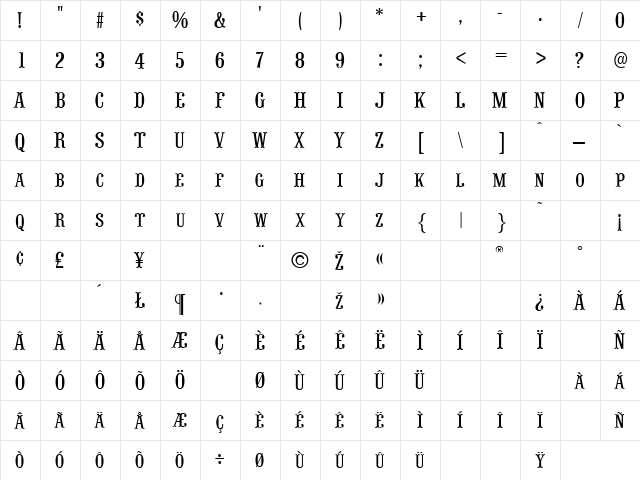
Stereopticon Regular
Design Context for Stereopticon Typeface
Stereopticon is a composed and adaptable typeface that performs quietly and consistently across a wide range of design contexts.